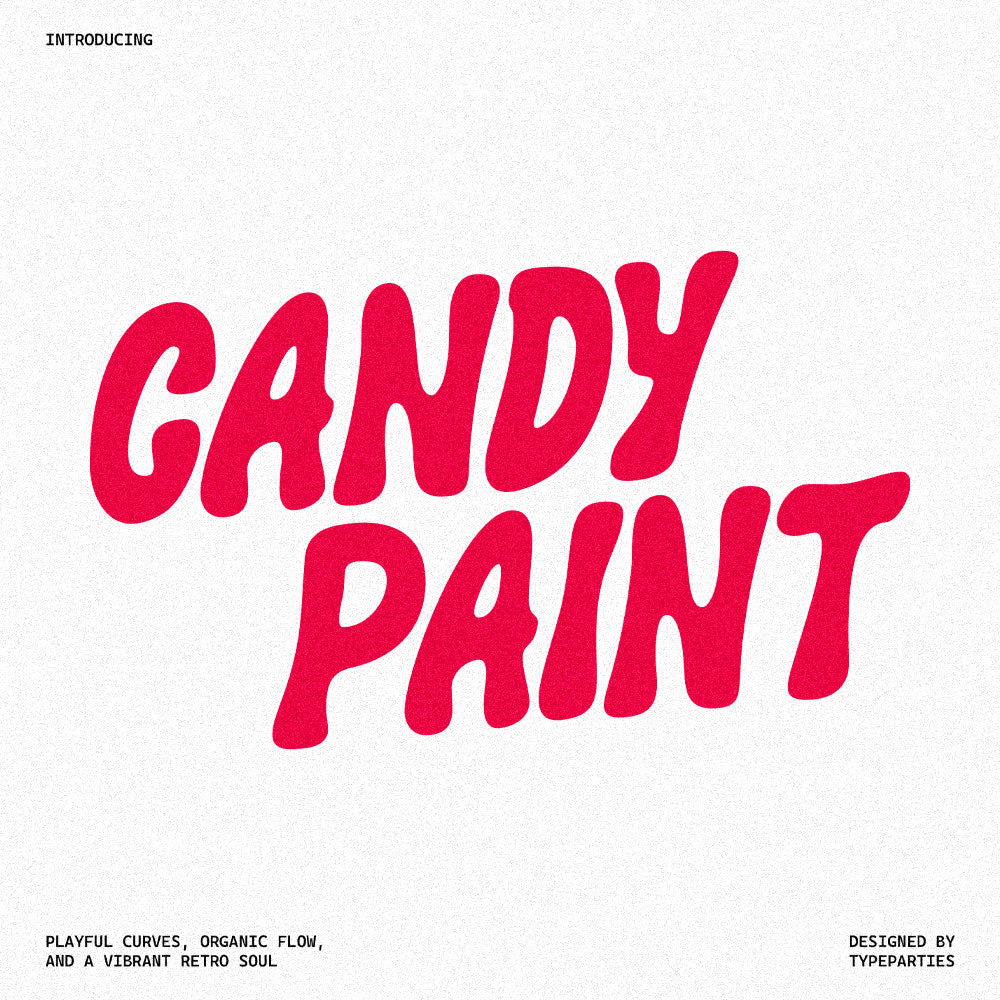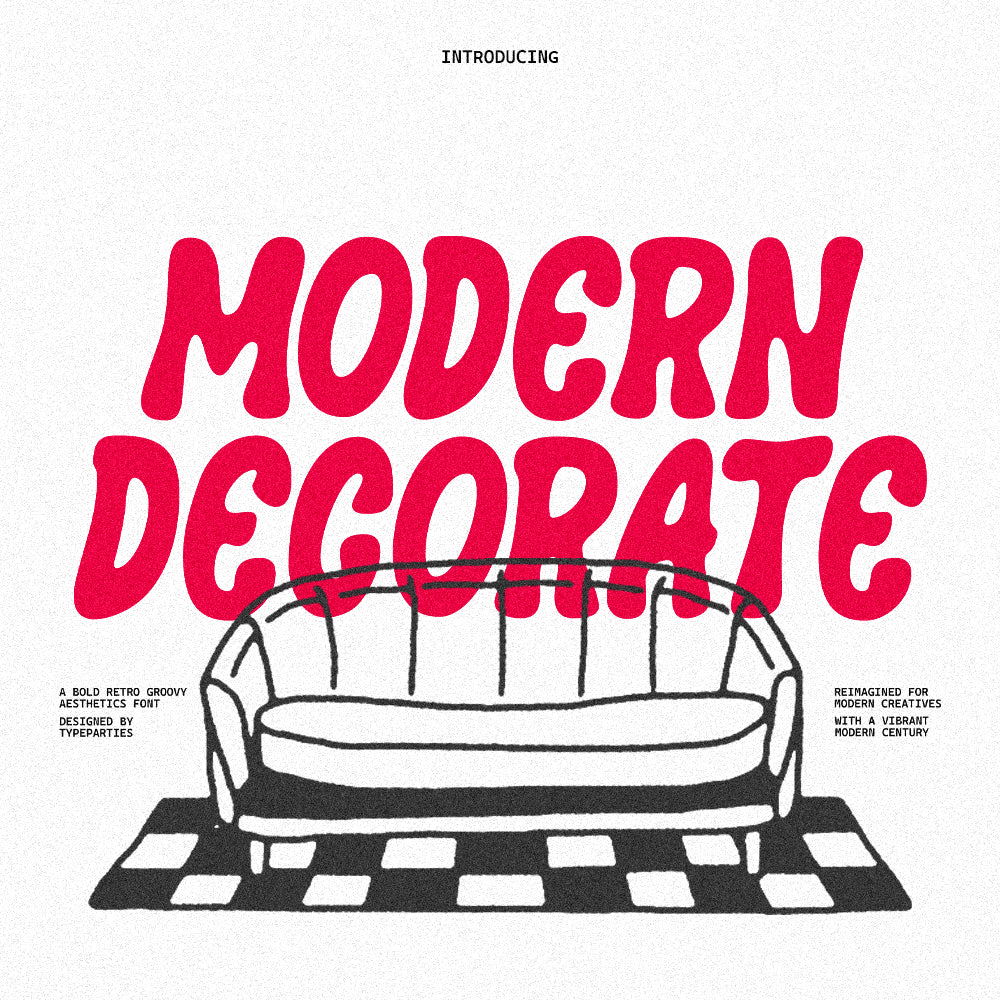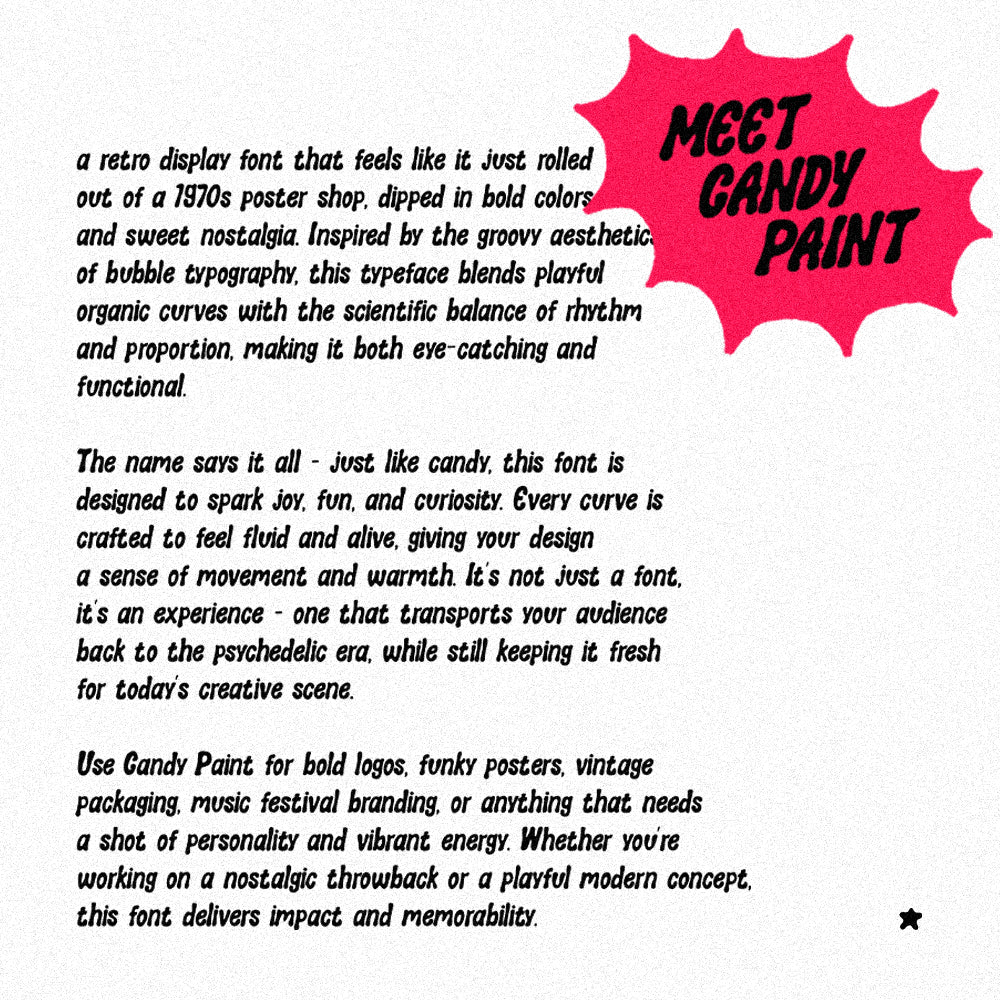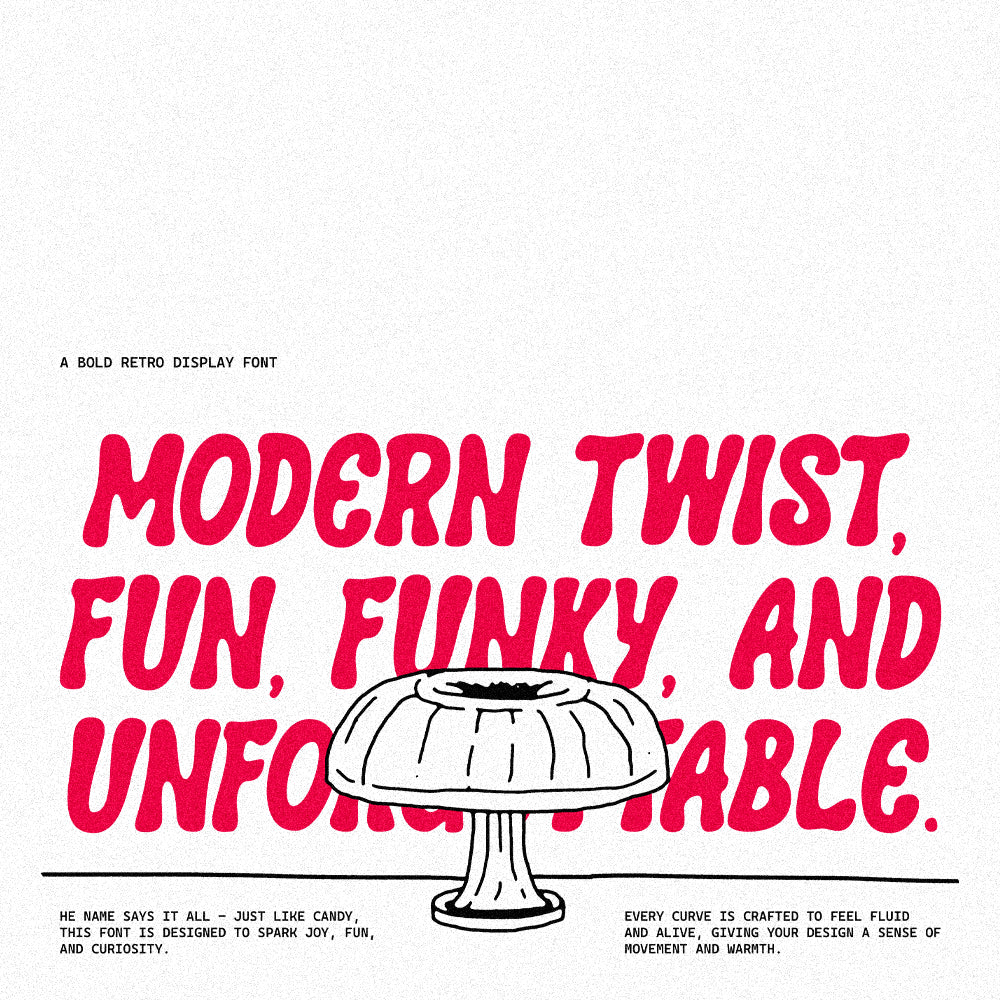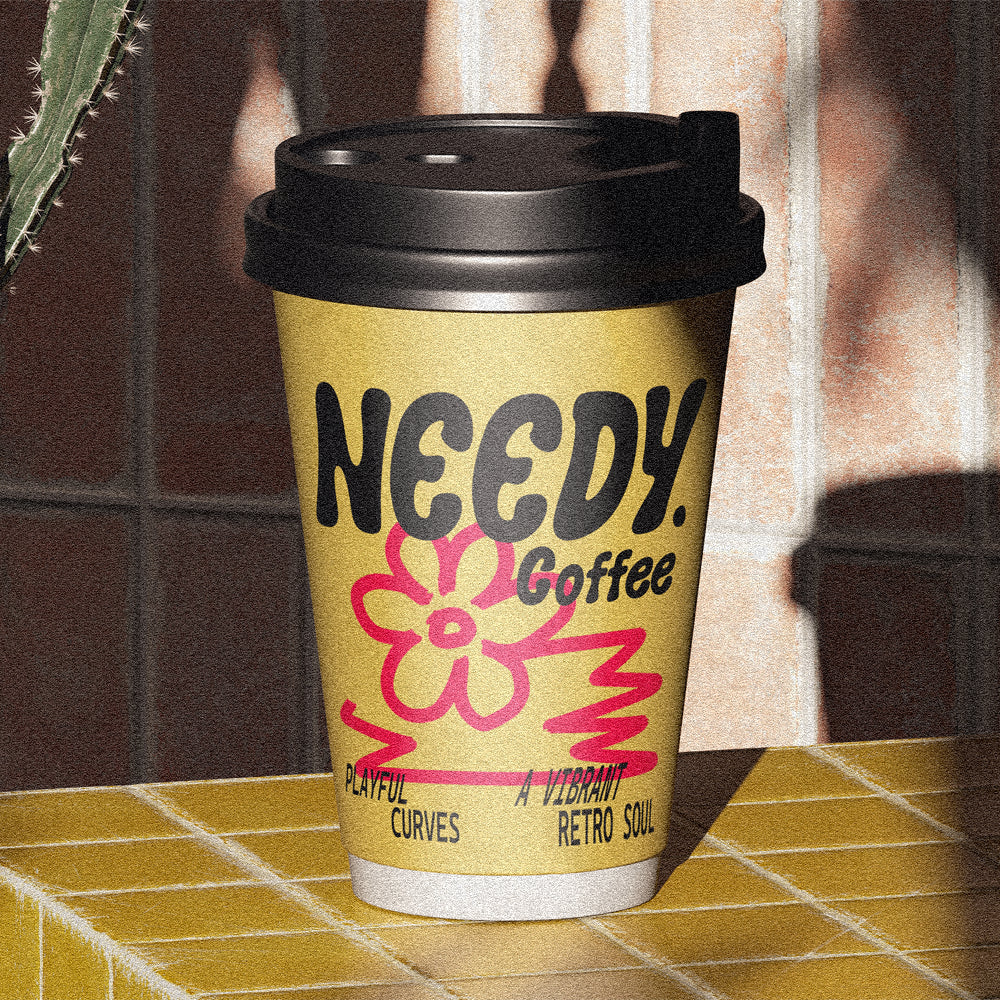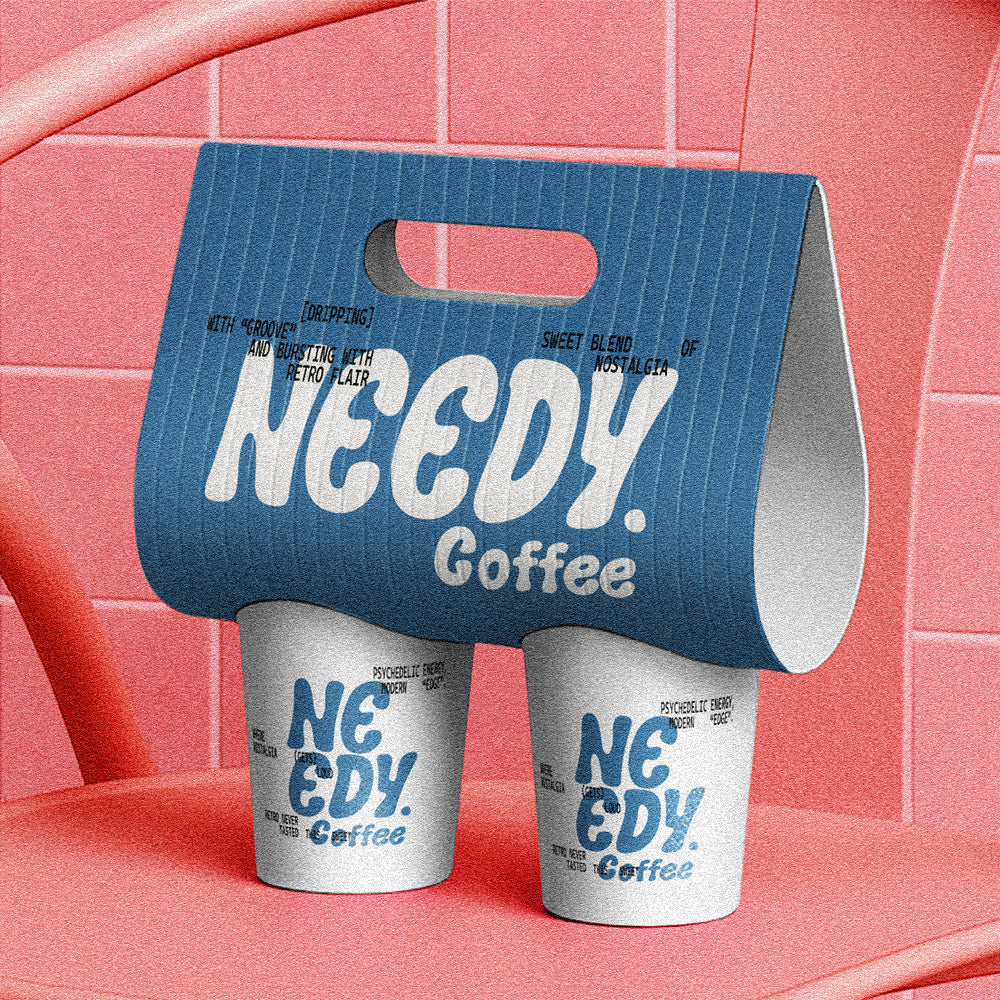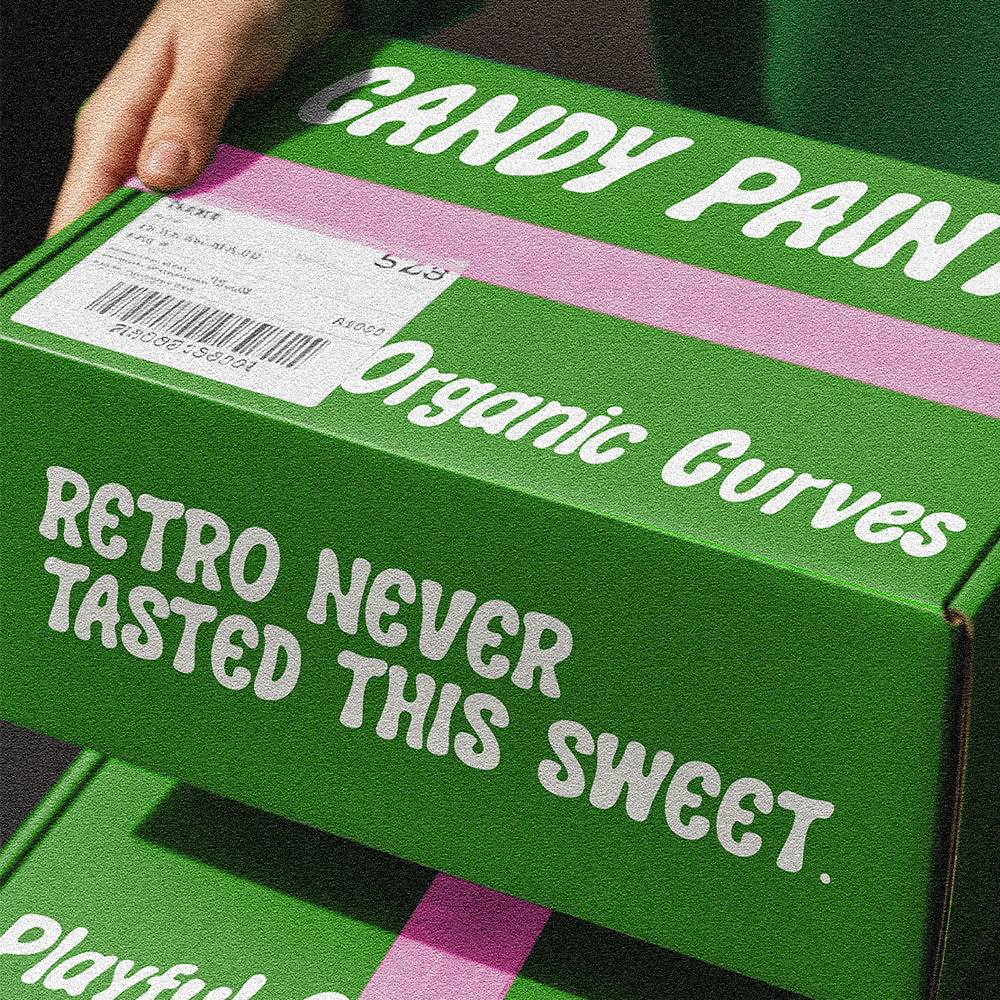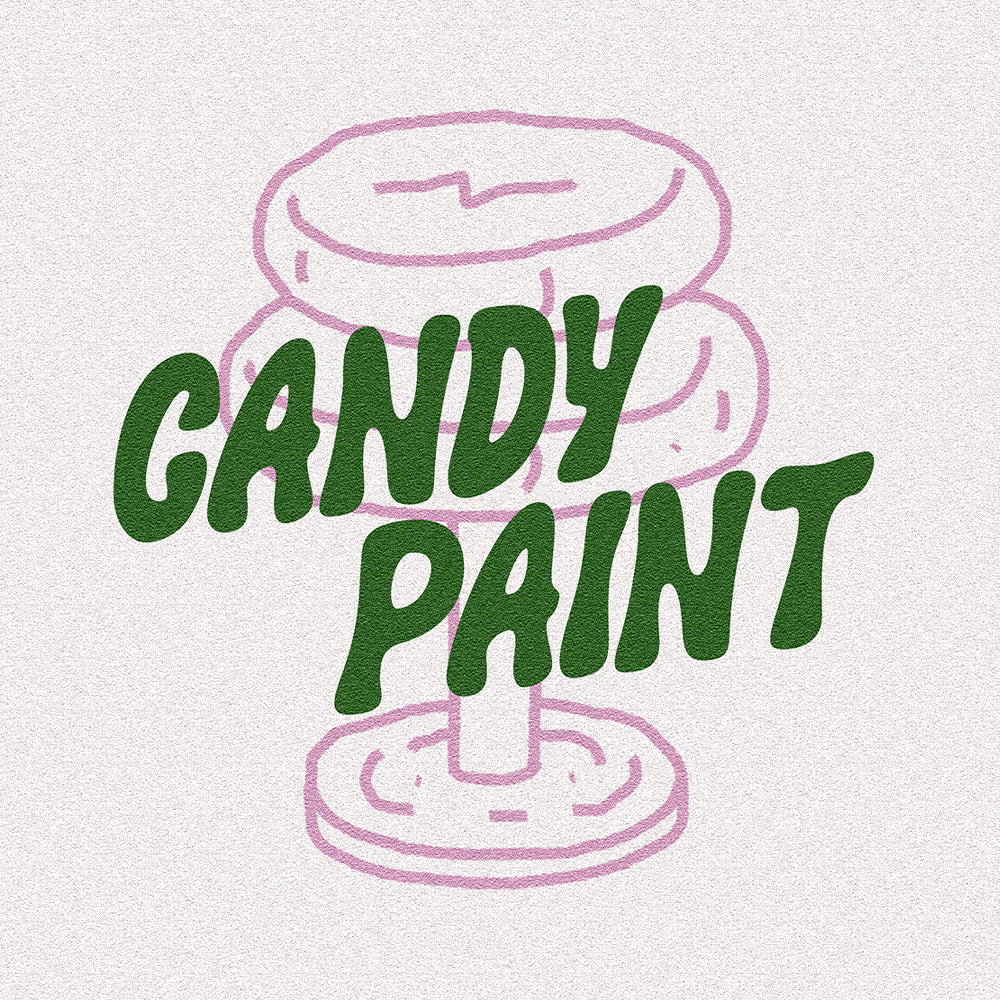
CandyPaint – Retro Groovy Font
CandyPaint – Retro Groovy Font is a display typeface inspired by 1970s bubble typography, featuring playful organic curves and a balanced design. It includes uppercase and lowercase letters, numerics, punctuation, and multilingual support, available in both .otf and .ttf formats.